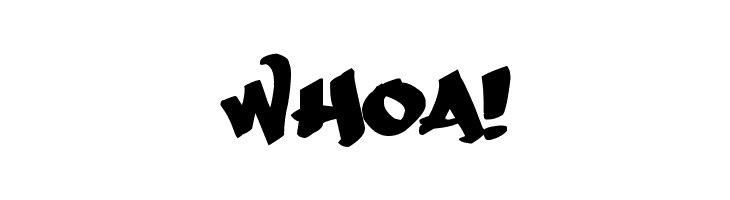
A playful, graffiti-inspired font with a hand-drawn, dynamic style.
A bold, graffiti-inspired font with sharp, angular lines and dynamic strokes.
A bold, graffiti-inspired font with dynamic and angular strokes.
A bold, graffiti-inspired font with dynamic and angular letterforms.